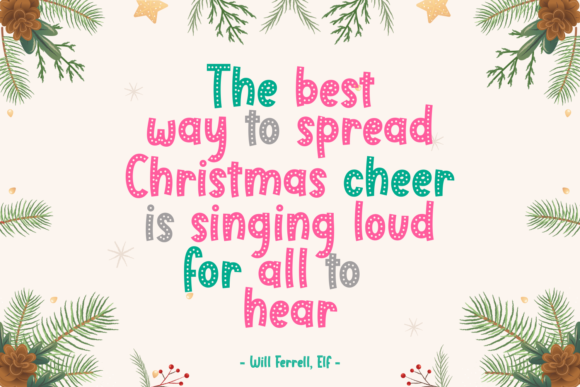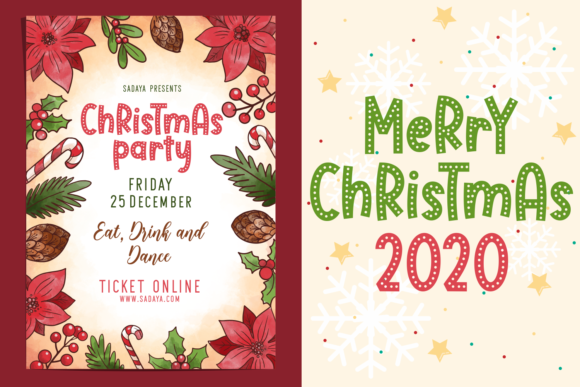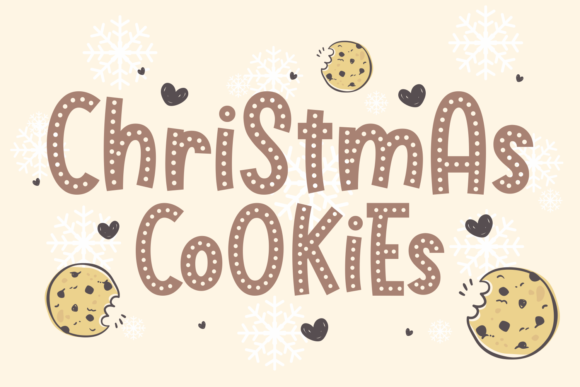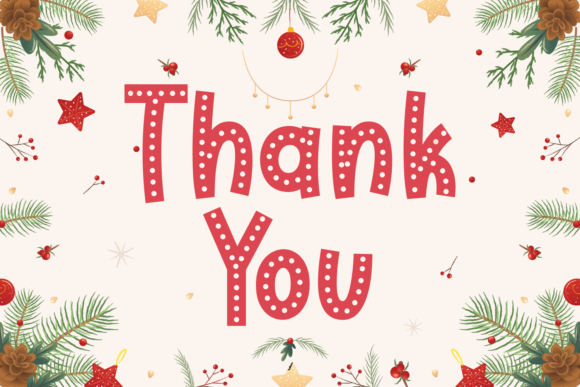
Dear Christmas Font: Add a Joyful Touch to Your Designs
Are you looking for a font that captures the magic and joy of the Christmas season? Look no further than the Dear Christmas font! This adorable decorative font is perfect for designers and crafters who want to add a winter/Christmas theme to their projects. With its playful and festive vibe, Dear Christmas font is sure to make your designs stand out.
What is Dear Christmas Font?
Dear Christmas font is a digital font designed specifically for creative projects. It’s a decorative font that features a unique and playful style, reminiscent of handwritten Christmas cards and festive holiday decorations. The font is carefully crafted to evoke the joy and spirit of the Christmas season, making it perfect for a wide range of design applications.
Key Features of Dear Christmas Font
- Cute and Playful Design: Dear Christmas font features a cute and playful design that’s perfect for adding a touch of whimsy to your projects.
- Winter/Christmas Theme: The font is designed specifically for the winter/Christmas season, making it perfect for holiday-themed designs.
- Decorative Style: Dear Christmas font has a decorative style that’s reminiscent of handwritten Christmas cards and festive holiday decorations.
How to Use Dear Christmas Font
Dear Christmas font is perfect for a wide range of design applications, including:
- Holiday Cards and Invitations: Add a personal touch to your holiday cards and invitations with Dear Christmas font.
- Christmas Crafts: Use Dear Christmas font to add a festive touch to your Christmas crafts, such as scrapbooking, paper crafting, and DIY decorations.
- Digital Designs: Use Dear Christmas font in your digital designs, such as social media graphics, blog posts, and website headers.
- Print-on-Demand Products: Add Dear Christmas font to your print-on-demand products, such as t-shirts, mugs, and gift tags.
Benefits of Using Dear Christmas Font
Using Dear Christmas font in your designs offers a range of benefits, including:
- Unique and Festive Look: Dear Christmas font adds a unique and festive look to your designs, making them stand out from the crowd.
- Easy to Read: The font is easy to read, even at small sizes, making it perfect for a wide range of design applications.
- Customizable: Dear Christmas font can be customized to fit your design needs, including adjusting the size, color, and style.
- Time-Saving: Using Dear Christmas font saves you time and effort, as you don’t have to spend hours designing a custom font from scratch.
Tips for Using Dear Christmas Font
Here are some tips for using Dear Christmas font in your designs:
- Use it Sparingly: Use Dear Christmas font sparingly to add a touch of festivity to your designs, rather than overwhelming the entire design.
- Pair it with Other Fonts: Pair Dear Christmas font with other fonts to create a unique and interesting design.
- Have Fun: Most importantly, have fun and be creative with Dear Christmas font!
Dear Christmas font is a beautiful and festive font that’s perfect for designers and crafters who want to add a touch of joy and whimsy to their projects. With its cute and playful design, winter/Christmas theme, and decorative style, Dear Christmas font is sure to make your designs stand out. Whether you’re creating holiday cards and invitations, Christmas crafts, digital designs, or print-on-demand products, Dear Christmas font is the perfect choice. So why wait? Download Dear Christmas font today and start adding a joyful touch to your designs!